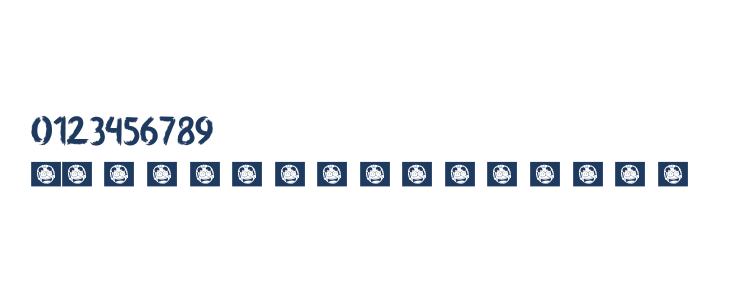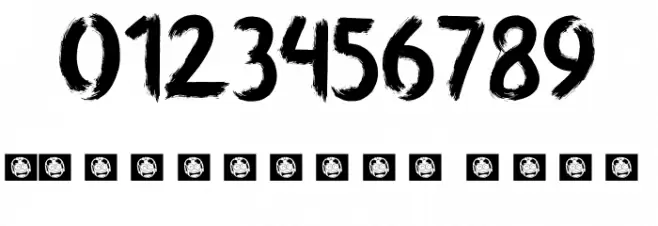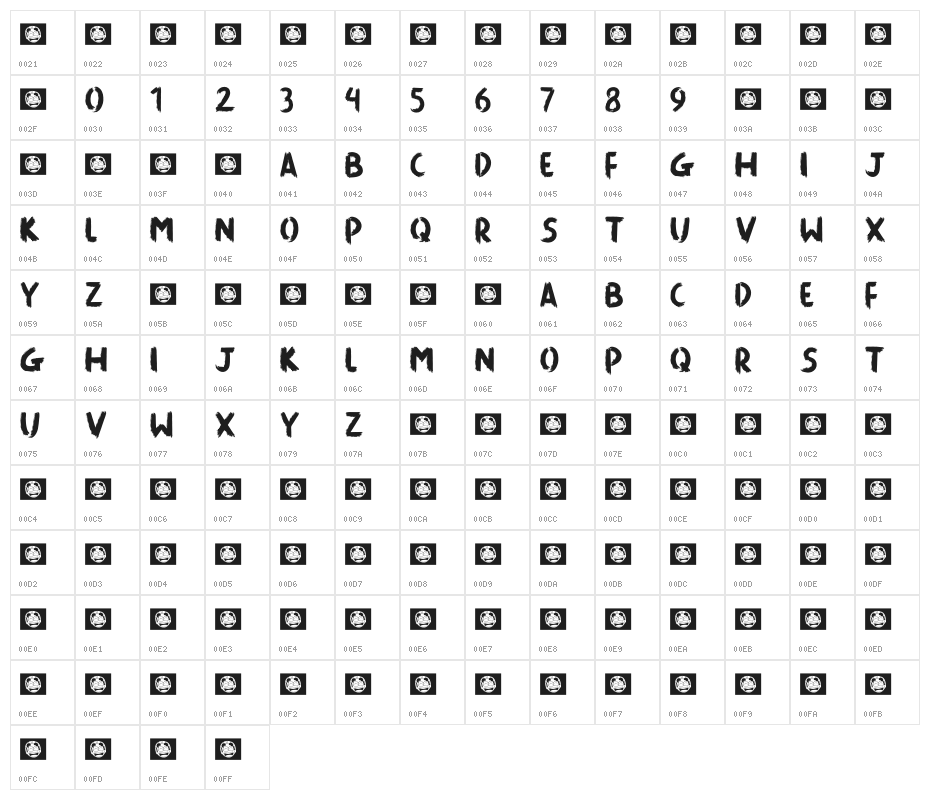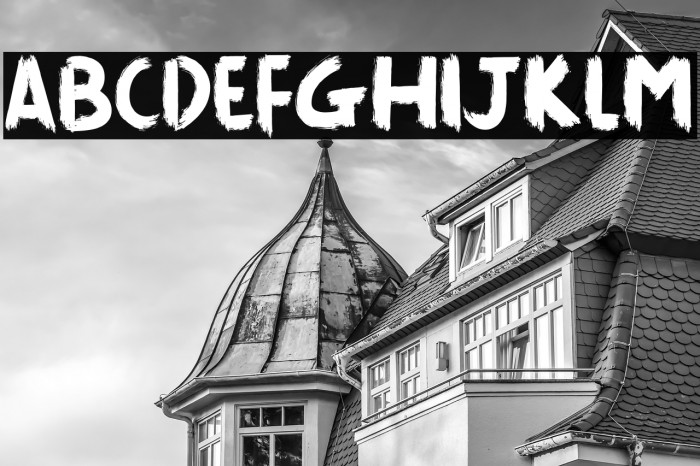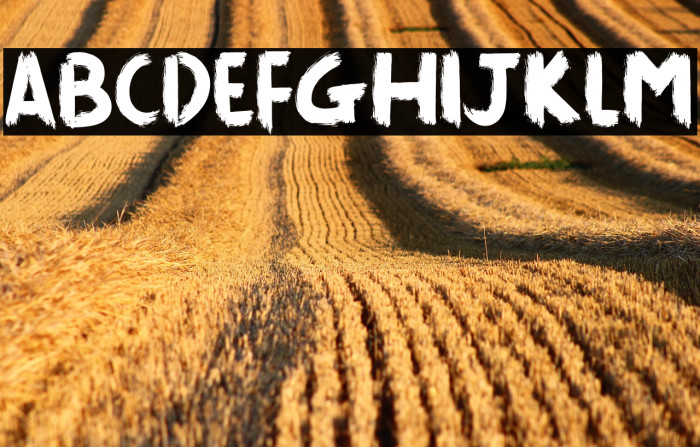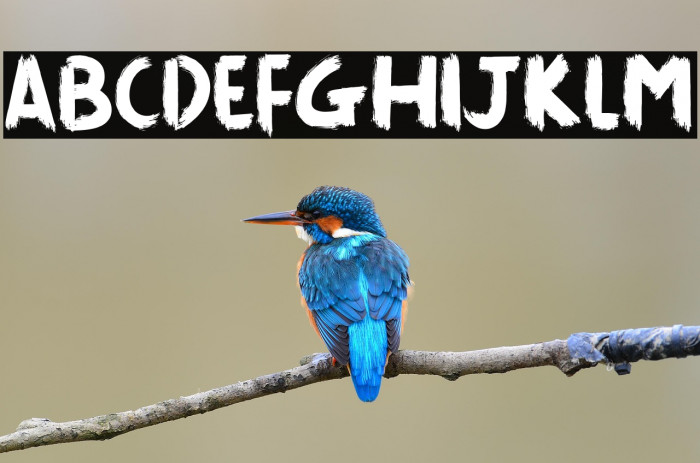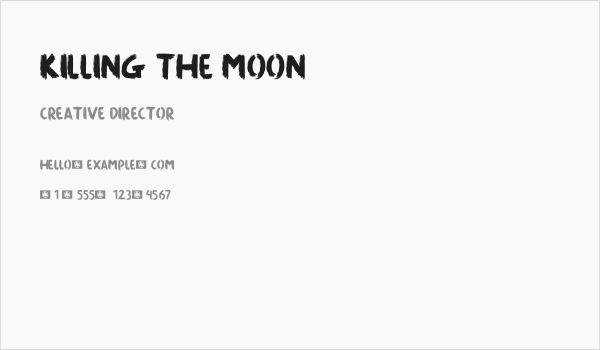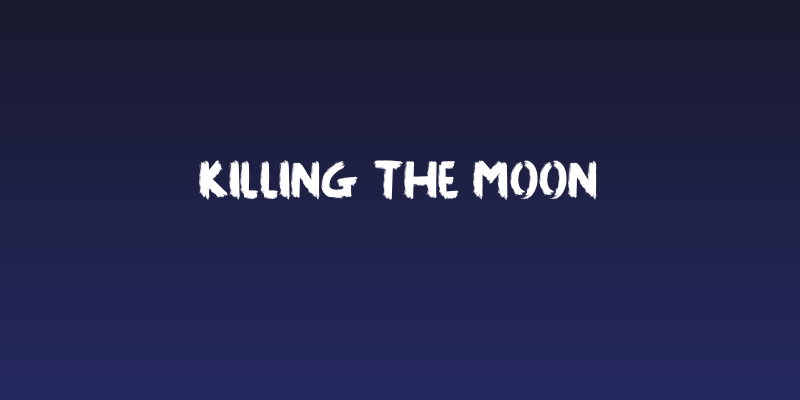
Killing The Moon Font
Killing The Moon Description
This font features a bold, brush-stroke style that exudes a sense of raw energy and artistic flair. The characters are crafted with uneven edges and varying thickness, giving them a hand-painted appearance. This style is reminiscent of calligraphic techniques, yet it maintains a modern edge with its dynamic and expressive forms. The uppercase and lowercase letters are consistent in their rugged texture, while the numerals and special characters follow suit, ensuring a cohesive look across all elements. The font's unique aesthetic makes it stand out, perfect for projects that require a touch of creativity and boldness.